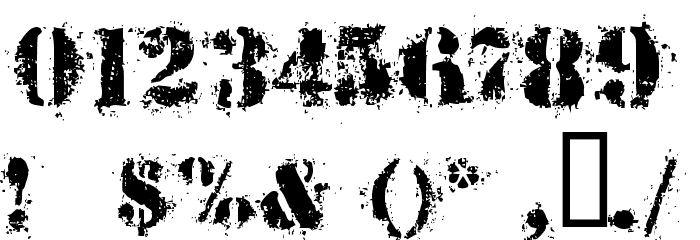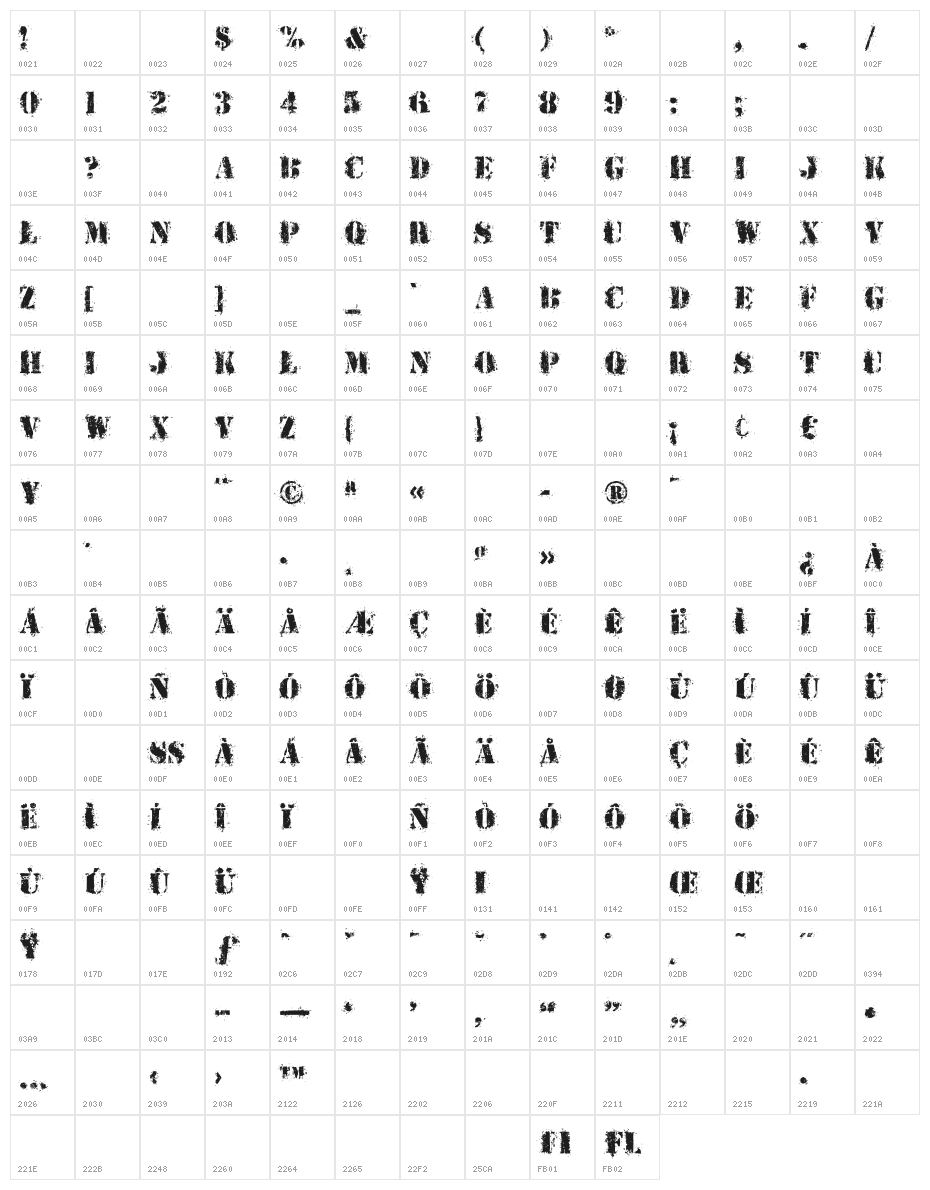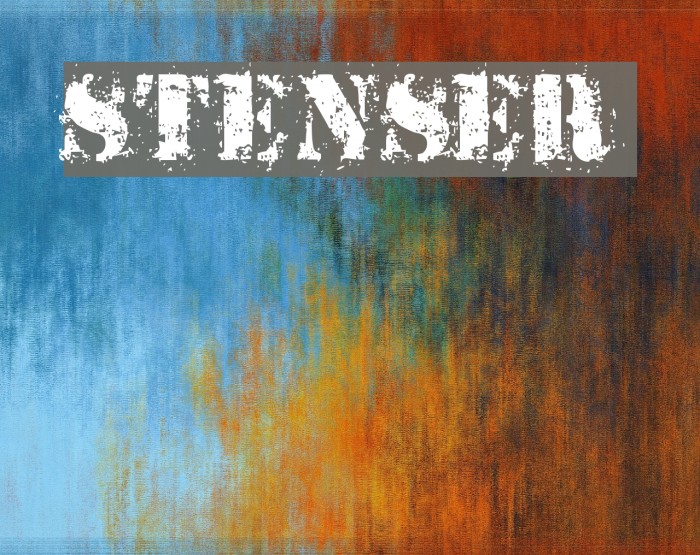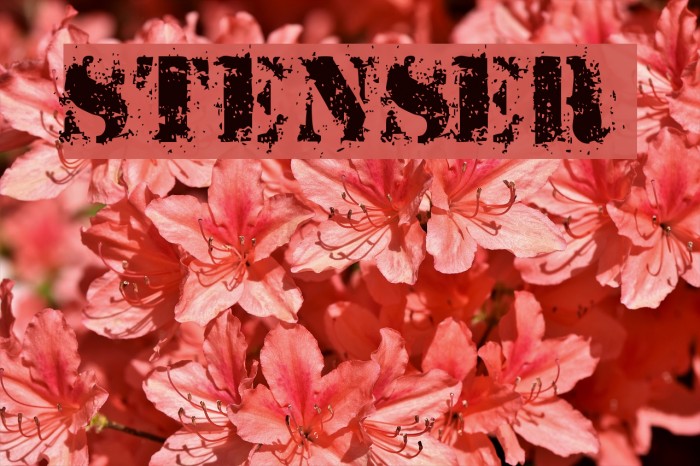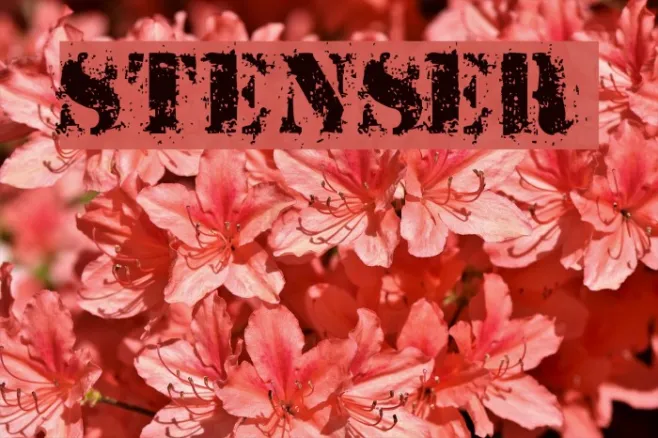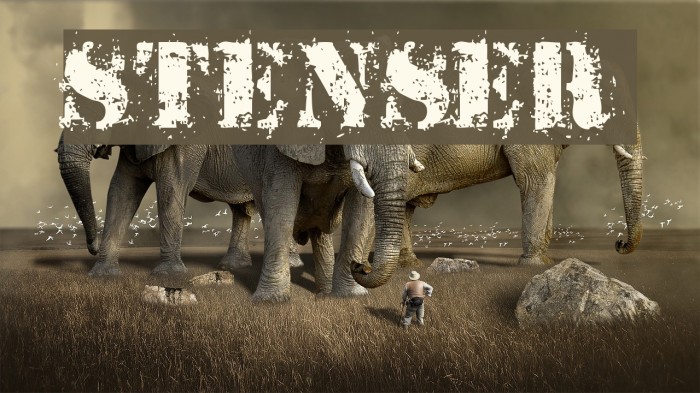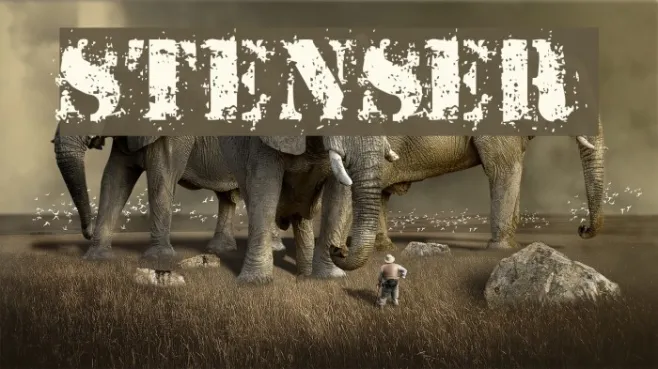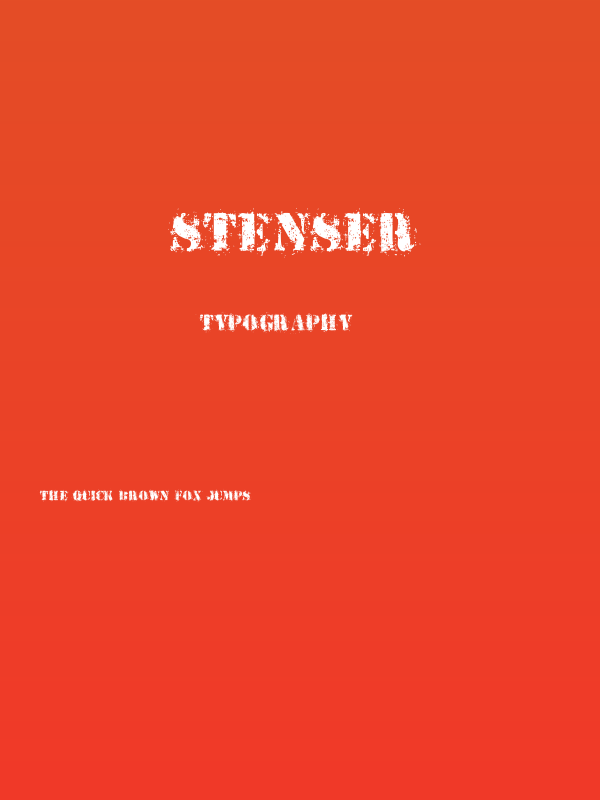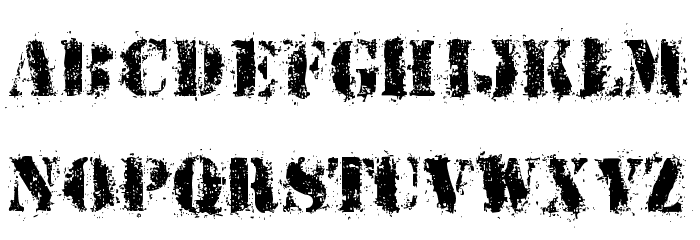
StensEr Font
StensEr Description
This font features a bold, distressed style with a stencil-like appearance. The characters are heavily textured, giving them a rugged and worn look, reminiscent of industrial or military stencils. The uppercase and lowercase letters maintain a consistent design, with rough edges and a grunge effect that adds character and depth. The numbers and special characters follow the same aesthetic, making the font suitable for designs that require a strong, impactful presence. The overall appearance is both bold and artistic, making it ideal for projects that aim to convey strength and edginess.